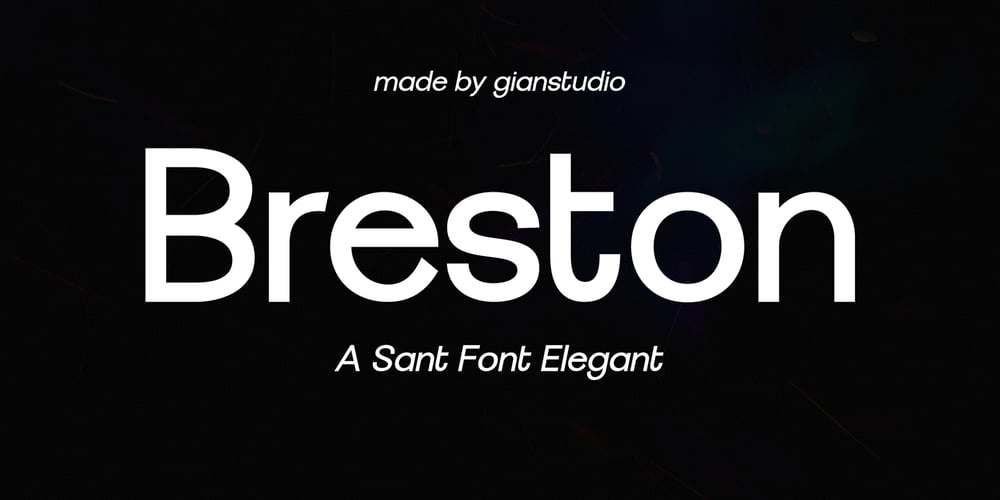
Breston Font Family was designed by Afri Giani and published by Gian Studio. Breston contains 2 styles and family package options. Breston Display is a contemporary display font designed with strong, sharp and dynamic. Perfect for any branding, magazine, posters, logos, titles, blogs, fashion brands, resorts, cosmetics, invitations, weddings, branding, packaging, magazines, boutiques, social media, restaurants, spas, greeting cards, headers, headlines and more . Breston comes with a full set of uppercase, lowercase letters, numbers, punctuation and multilingual support.Super Easy to Use Alternative – It supports OpenType etc so you don’t need any special software.Happy Designing